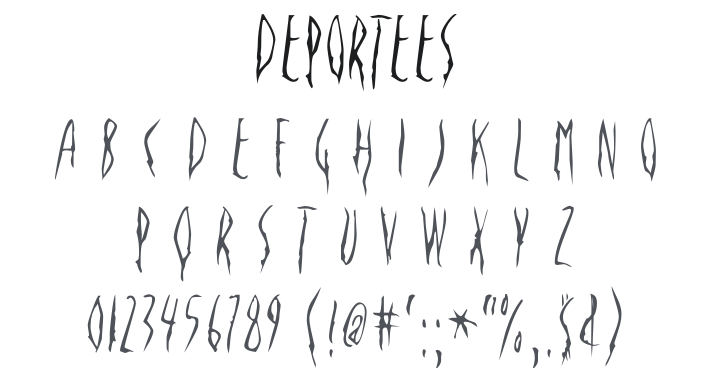
Deportees Font
About Deportees
Deportees is a rough, trashy script typeface with an anarchic, hand-scrawled energy — letters look hastily scratched with a blunt instrument, carrying the gritty urgency of protest signage or ransom notes. Its raw, unpolished strokes feel deliberately anti-design. Great for punk zines, underground music posters, anti-establishment branding, graffiti-inspired layouts, and any project that thrives on rebellious, rough-edged attitude.